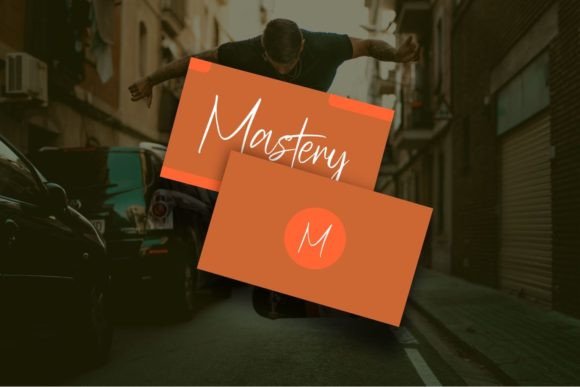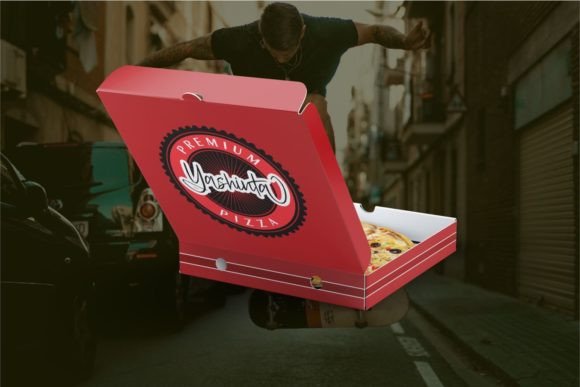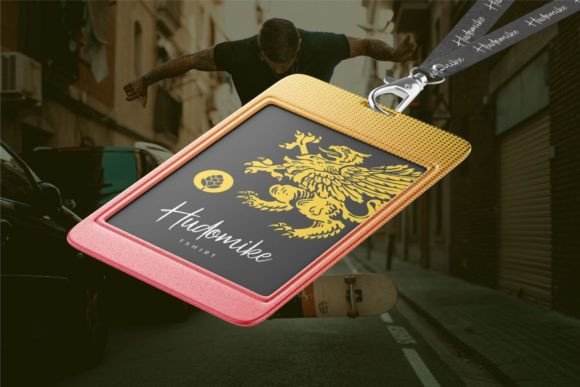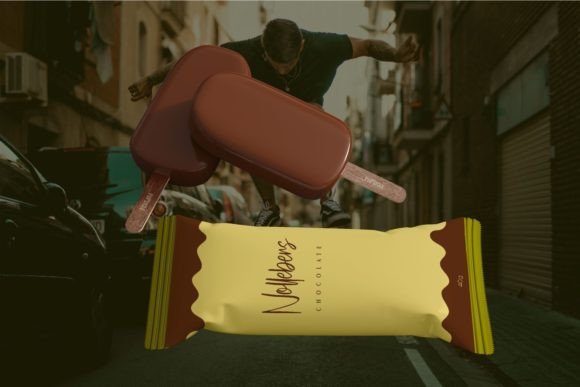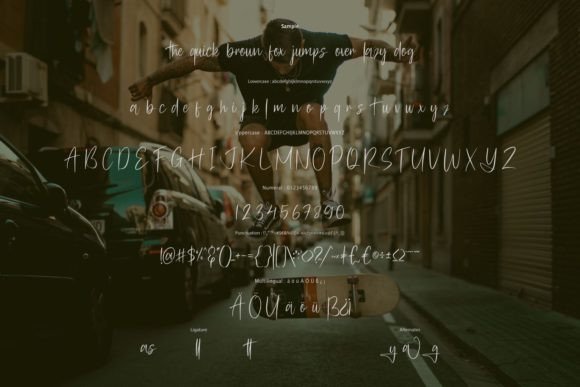
Fantastic Beast Font: Elevate Your Designs with Elegance and Class
In the world of typography, a font can make or break the aesthetic of a design. For those seeking a touch of elegance and sophistication, the Fantastic Beast Font is an excellent choice. This lovely and delicate script font is specifically crafted for designers and crafters who require a beautiful and refreshing look to enhance their creations.
What is Fantastic Beast Font?
Fantastic Beast Font is a meticulously designed script font that embodies elegance and class. Its delicate strokes and refined lines make it an ideal choice for a variety of design projects, from wedding invitations and branding materials to packaging and digital content. This font is perfect for those who want to add a touch of sophistication and whimsy to their designs.
Key Features of Fantastic Beast Font
- Elegant and Delicate: Fantastic Beast Font boasts a beautiful, cursive script style that exudes refinement and poise.
- Highly Versatile: This font is suitable for a wide range of design projects, including print and digital materials.
- Easy to Read: Despite its delicate nature, Fantastic Beast Font remains highly legible, making it perfect for body text and headings.
- Unique and Whimsical: The font’s distinctive character set and subtle imperfections give it a charming, handmade feel.
Use Cases for Fantastic Beast Font
Fantastic Beast Font is an incredibly versatile typeface that can be used in various design projects. Here are some examples:
- Wedding Invitations and Stationery: Add a touch of romance and sophistication to your wedding designs with this beautiful script font.
- Branding and Packaging: Use Fantastic Beast Font to create elegant and memorable brand identities, product labels, and packaging designs.
- Digital Content: Enhance your blog posts, social media graphics, and website headers with this lovely font.
- Signage and Displays: Create eye-catching signs, banners, and display materials with Fantastic Beast Font.
Tips for Using Fantastic Beast Font
To get the most out of Fantastic Beast Font, consider the following tips:
- Pair with Contrasting Fonts: Combine Fantastic Beast Font with bold, sans-serif fonts to create visually appealing contrast.
- Experiment with Colors: Try pairing the font with pastel shades, metallic colors, or rich jewel tones to add depth and interest.
- Play with Size and Style: Use Fantastic Beast Font in various sizes and styles to create visual hierarchy and add emphasis.
Fantastic Beast Font is a beautiful and elegant script font that can elevate your designs to new heights. Its delicate strokes, refined lines, and whimsical character set make it an excellent choice for designers and crafters seeking to add a touch of sophistication and class to their creations. With its versatility, legibility, and unique charm, Fantastic Beast Font is sure to become a staple in your typography collection.
In conclusion, Fantastic Beast Font is a lovely and delicate script font that can add a touch of elegance and class to your designs. With its versatility, legibility, and unique charm, it’s an excellent choice for designers and crafters seeking to create beautiful and refreshing designs.